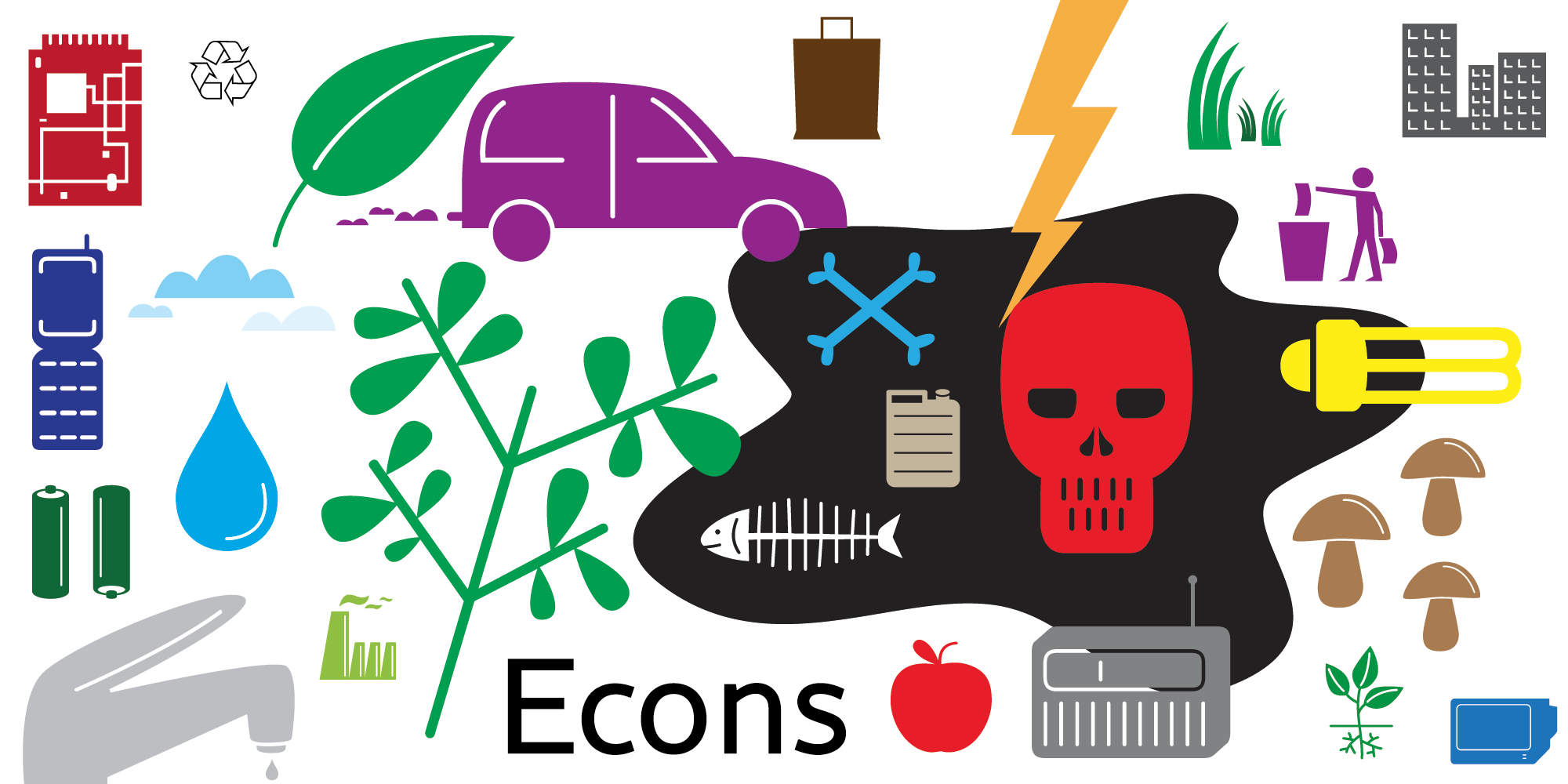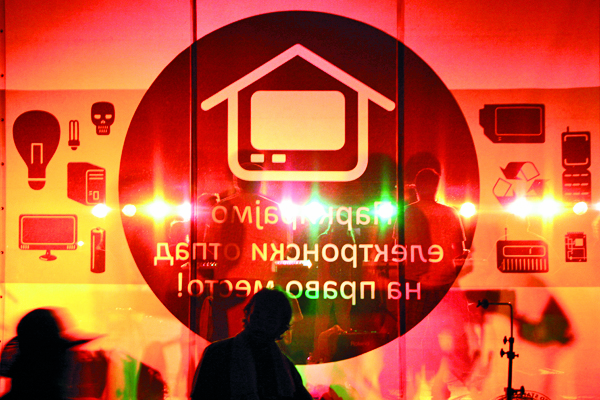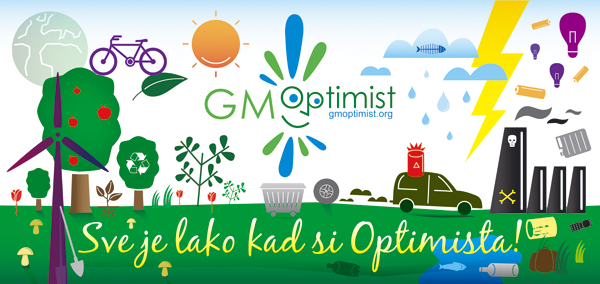
Dangereous can on E, sharp grass on C, strong tree on O, drop of water on N and hand shovel on S = ECONS, set of 52 ecological symbols made after spending one day fishing on the river in my municipality and seeing so miscellaneous garbages in the water.